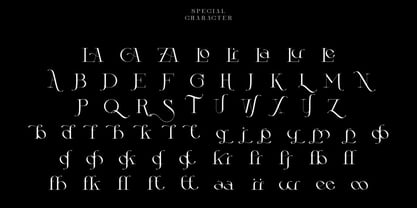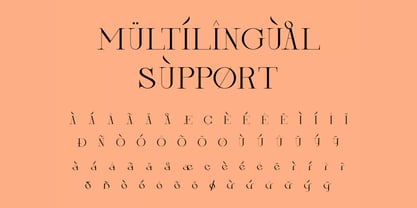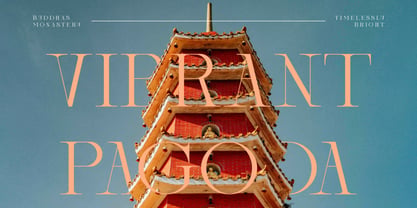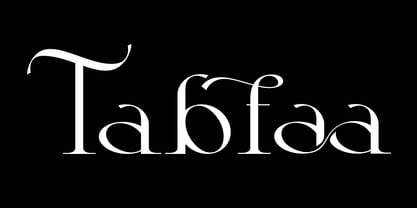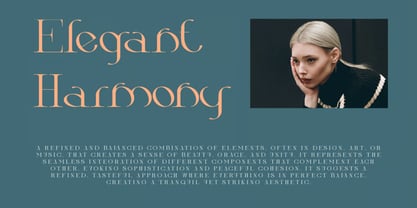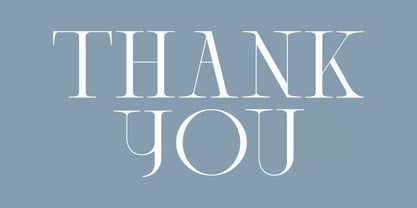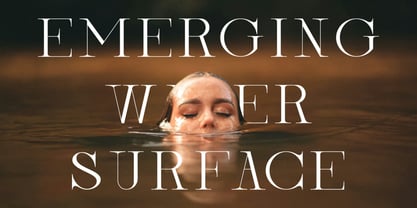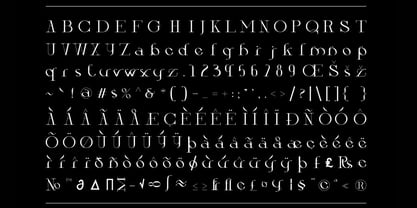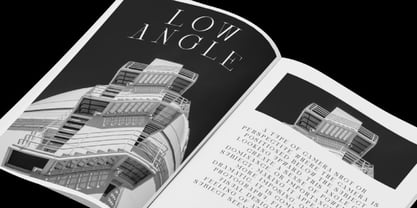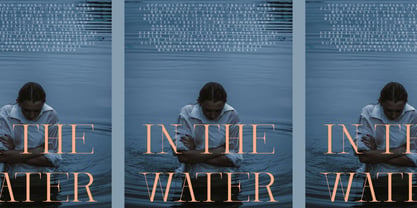
Tabfaa
Tabfaa is a sophisticated serif font crafted to embody elegance, refinement, and timeless beauty. Featuring graceful curves, distinctive serif details, and balanced proportions, Tabfaa seamlessly blends classic typography with modern design sensibilities. The result is a luxurious typeface that radiates professionalism and charm, making it an exceptional choice for premium creative projects.
Designed for designers, brands, and creatives who value high-end aesthetics, Tabfaa delivers a strong visual presence while maintaining remarkable readability and versatility. Its refined letterforms create a sense of exclusivity and sophistication, making it ideal for luxury branding, editorial design, fashion campaigns, wedding stationery, product packaging, and upscale marketing materials.
Whether you're building a luxury brand identity, designing elegant magazine layouts, or creating captivating logos, Tabfaa provides the perfect typographic foundation for projects that demand style, prestige, and timeless appeal.
Key Features:
• Sophisticated Serif Design: Elegant letterforms inspired by classic and contemporary typography.
• Luxury Aesthetic: Perfect for premium branding and high-end visual identities.
• Distinctive Serif Details: Refined curves and beautifully crafted serif accents.
• Timeless Typography: Blends traditional elegance with modern sophistication.
• Excellent Readability: Balanced proportions for both display and branding applications.
• Versatile Design Style: Suitable for a wide variety of print and digital projects.
• Professional Quality: Carefully designed for exceptional visual performance.
Perfect For:
• Luxury Branding & Logo Design: Create memorable and sophisticated brand identities.
• Fashion & Beauty Brands: Ideal for premium products and upscale marketing.
• Editorial & Magazine Layouts: Perfect for headlines, covers, and feature articles.
• Wedding Invitations & Stationery: Add elegance and timeless beauty to special occasions.
• Packaging & Product Labels: Enhance luxury products with refined typography.
• Social Media & Advertising: Design polished and eye-catching promotional content.
• Creative Typography Projects: Excellent for quotes, presentations, and artistic designs.
Elevate your creative projects with Tabfaa—a sophisticated serif font that combines timeless charm, luxury aesthetics, and modern refinement. Perfect for branding, editorials, fashion campaigns, packaging, invitations, logos, and premium visual identities that deserve to stand out.